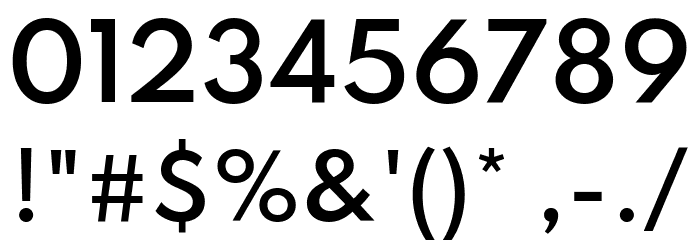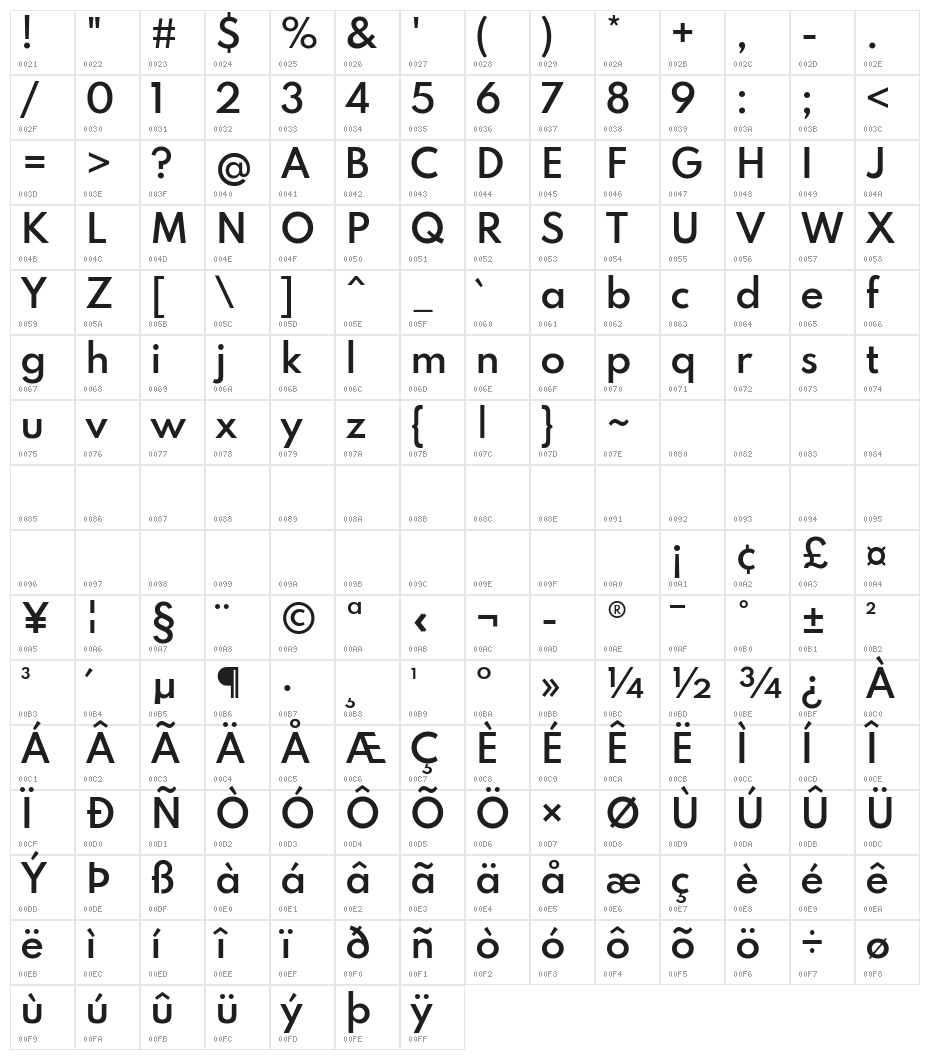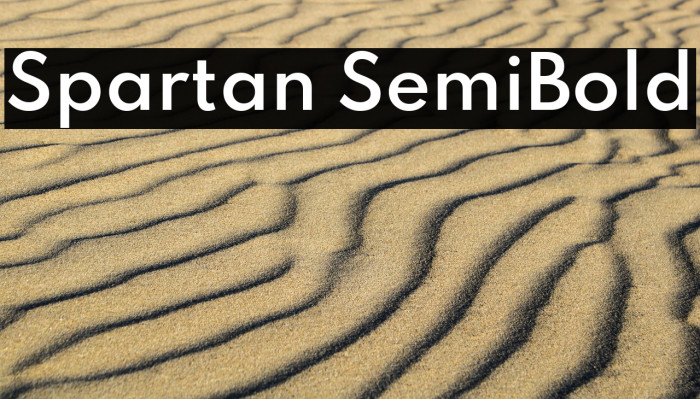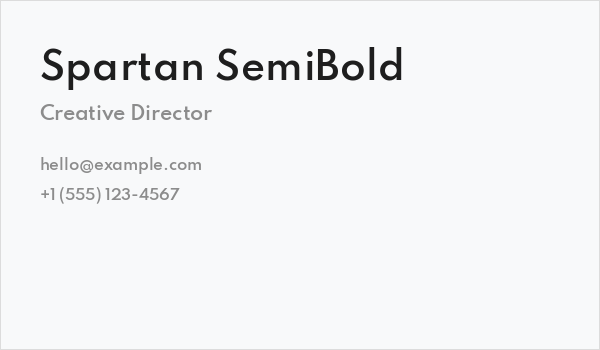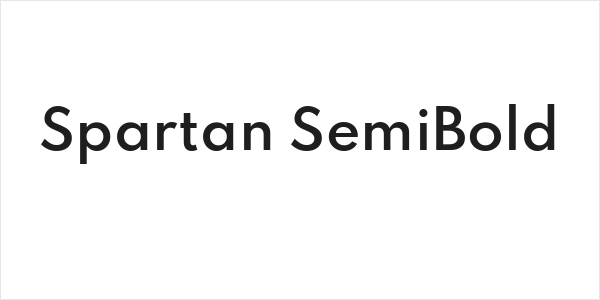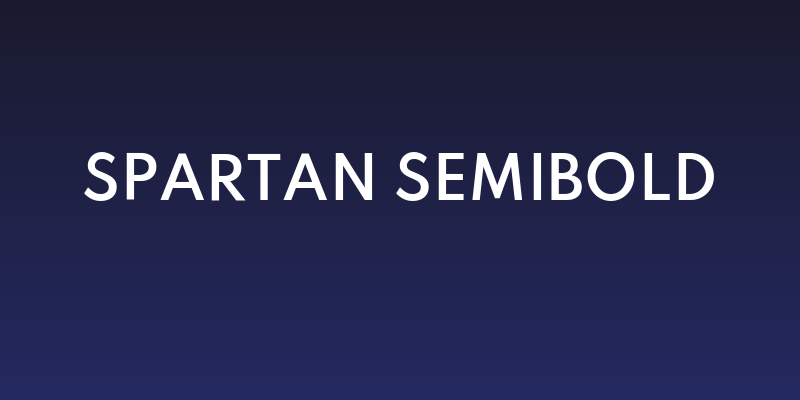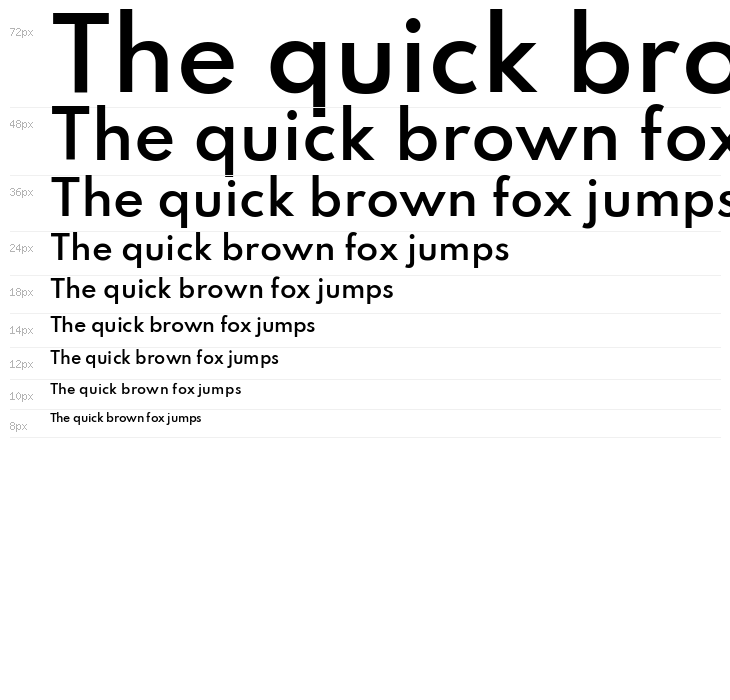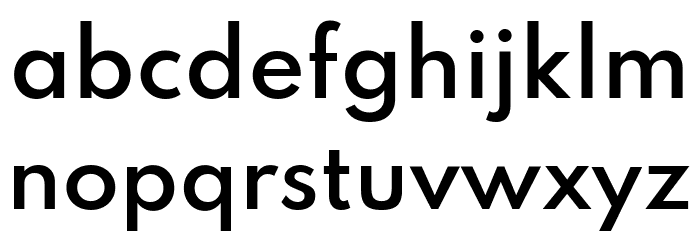
Spartan SemiBold Font
Spartan SemiBold Description
This typeface features a clean and modern sans-serif design, characterized by its geometric shapes and uniform stroke widths. The uppercase letters are bold and assertive, while the lowercase letters maintain a consistent and harmonious appearance. The numerals are clear and easily distinguishable, making them suitable for various applications. Special characters are well-defined, adding versatility to the font. The overall design is sleek and professional, making it ideal for contemporary branding and design projects.
| Use Case | Headlines, Logos, Digital Interfaces |
| Proposed Projects | Ideal for branding, advertising, digital interfaces, and editorial design. |